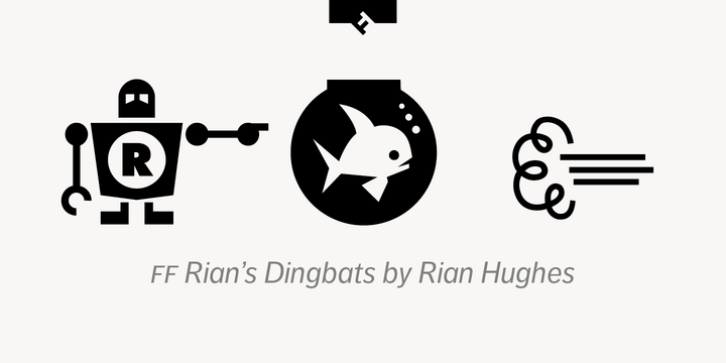
Publisher: FontFont
British type designer Rian Hughes created this pi and symbols FontFont in 1993.
The family has 5 weights, and is ideally suited for poster and billboards.It provides an extensive collection of wonderful dingbats and expressive graphic cartoons.
It comes with tabular lining and proportional lining figures.